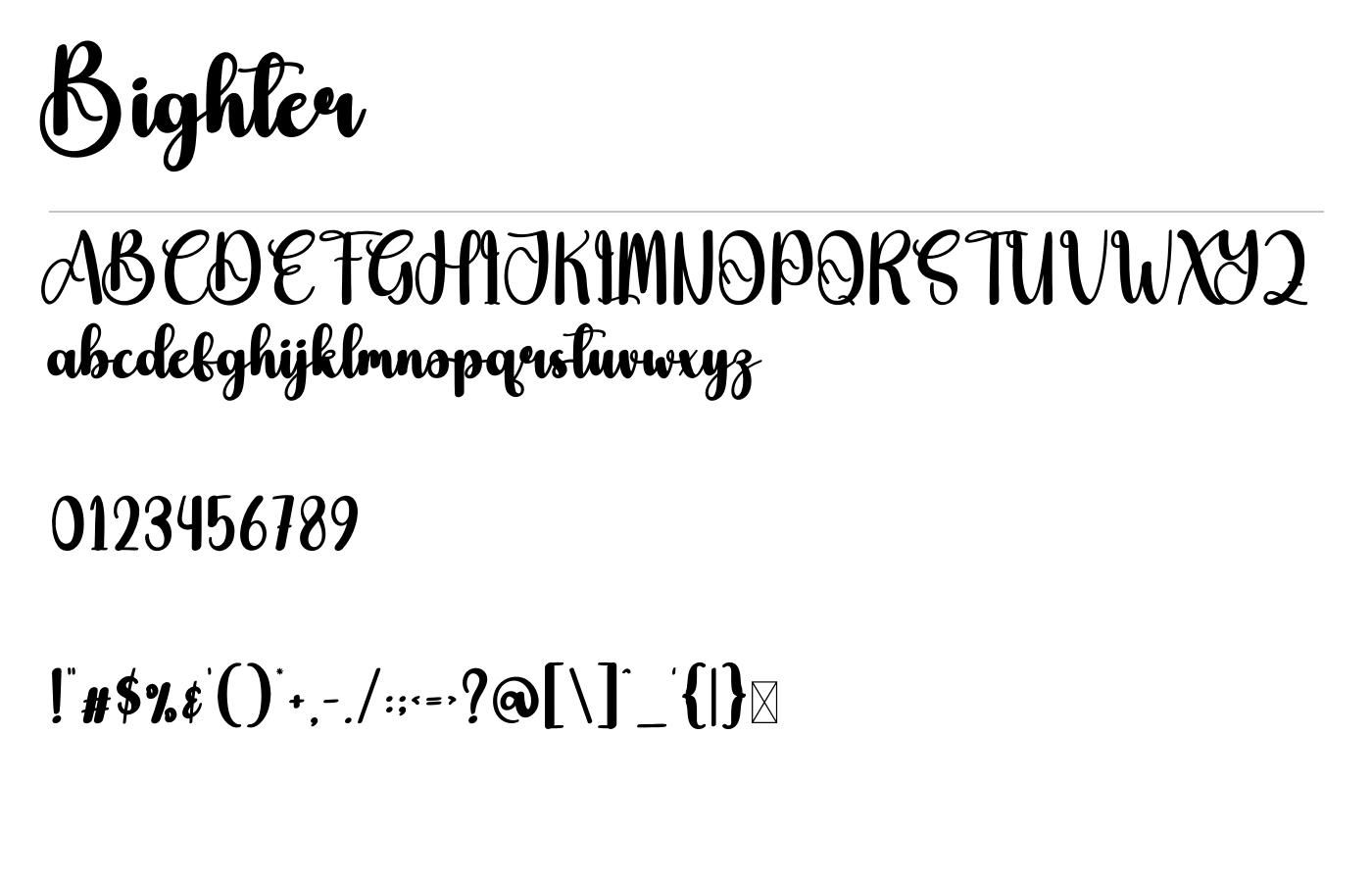
Bighter Font is a lively and elegant script typeface with a playful yet sophisticated feel, featuring bold strokes in the lowercase and tall, decorative uppercase letters with unique swashes and curls. Its lively personality and charming style make it ideal for creative branding, invitations, and headlines where a personal and artistic touch is desired. This font works well in designs that want to evoke warmth, creativity, and a handcrafted aesthetic.
Bighter Font